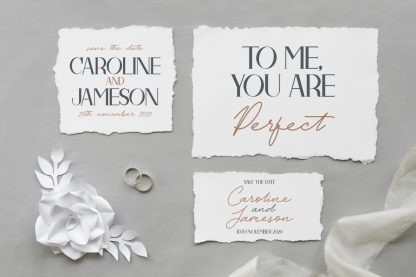
Brockman Calligraphy Font
Brockman – a new fresh handmade calligraphy font. Very suitable for greeting cards, branding materials, business cards, quotes, posters, and more!This font are perfect for wedding postcard. Or you can create perfect and unique design of your logo, blog, stationery, marketing, magazines and more 🙂